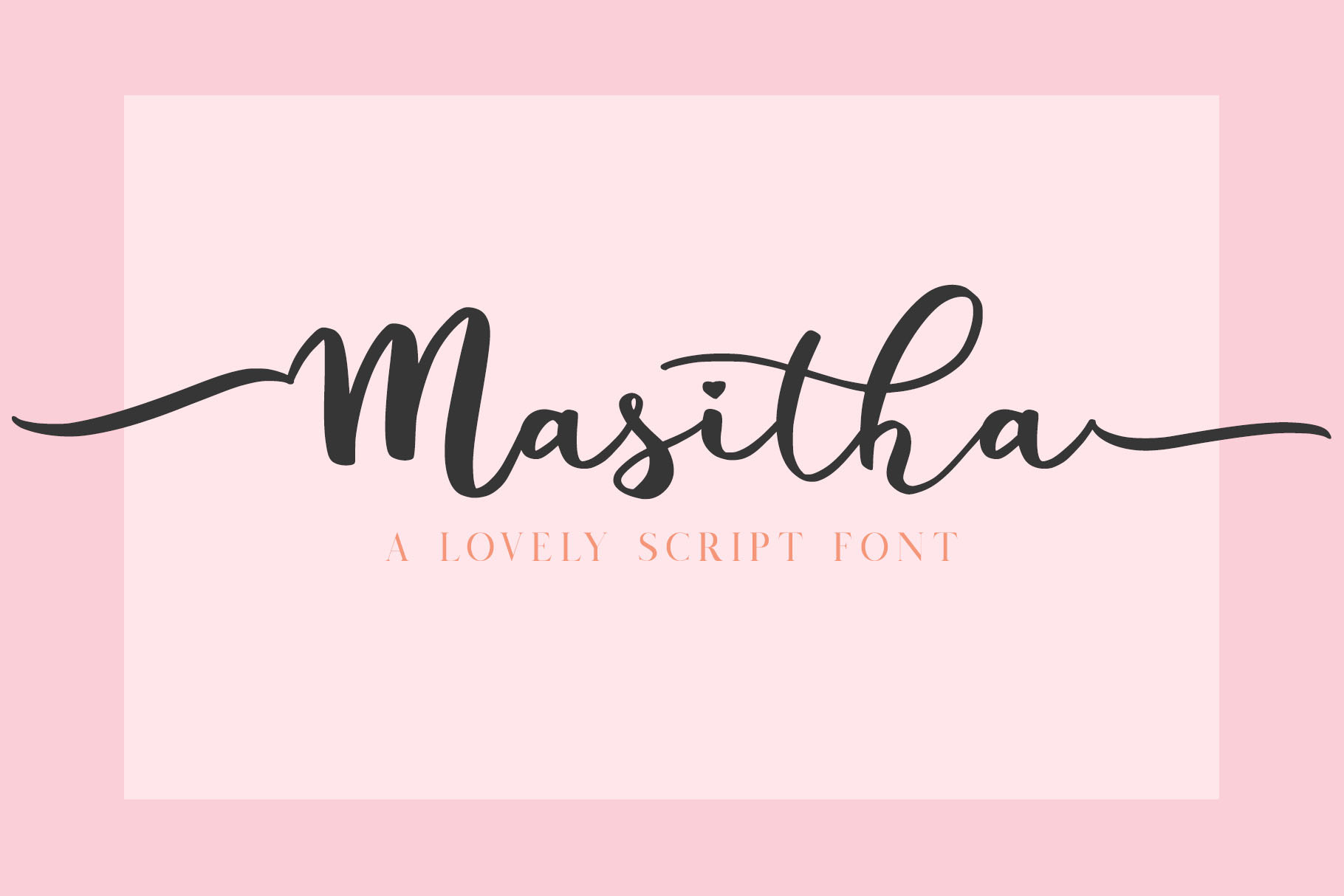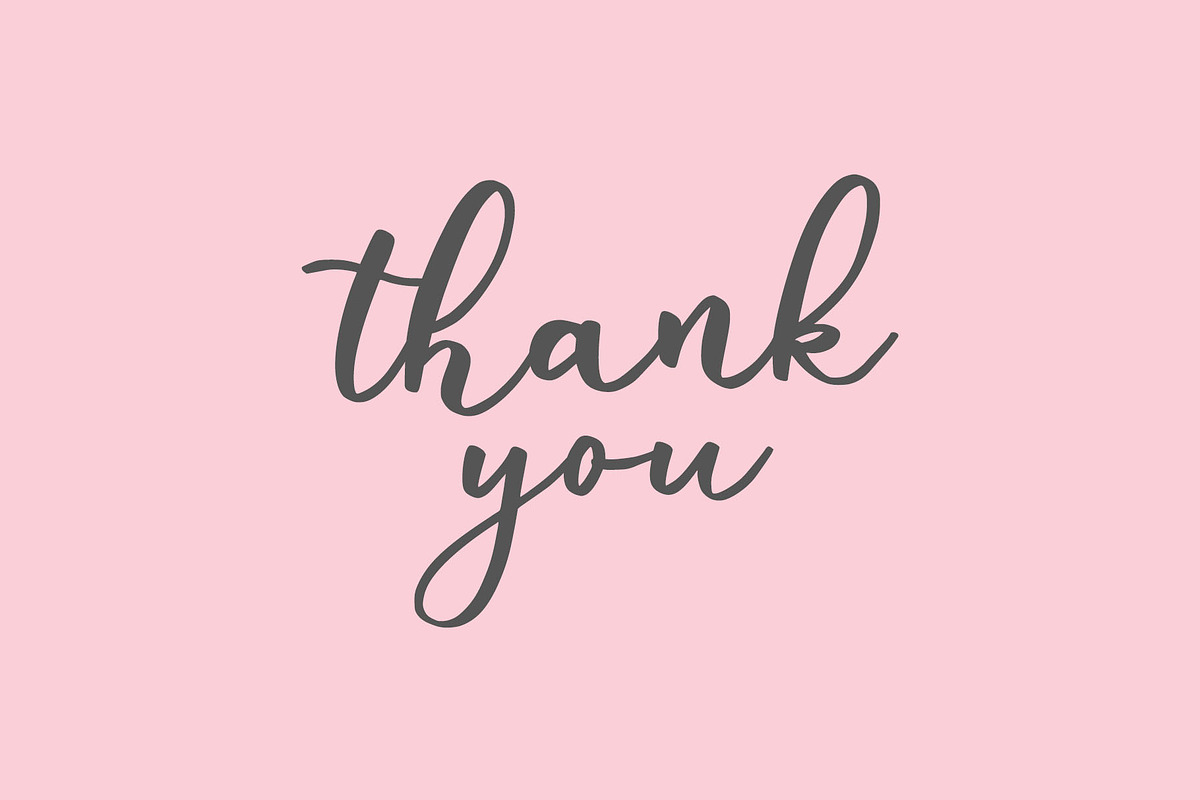
Masitha - A Lovely Script Font
Introducing New Font : Masitha - A Lovely Script Font
Masitha - A Lovely Script Font is an handwritten script font based on the expression of real handwriting. Masitha - A Lovely Script Font will work perfectly for fashion, e-commerce brands, trend blogs, wedding boutiques or any business that wants to appear upscale and chic.
Masitha - A Lovely Script Font also Suitable for Logo, greeting cards, quotes, posters, branding, name card, stationary, design title, blog header, art quote, typography, art, modern envelope lettering or book design, happening style like handdrawn design or watercolor design theme, craft design, any DIY project, book title, or any purpose to make your art/design project look pretty and trendy.
- Standard & Special Ligatures (ee oo rr ss tb th tk tl tt)